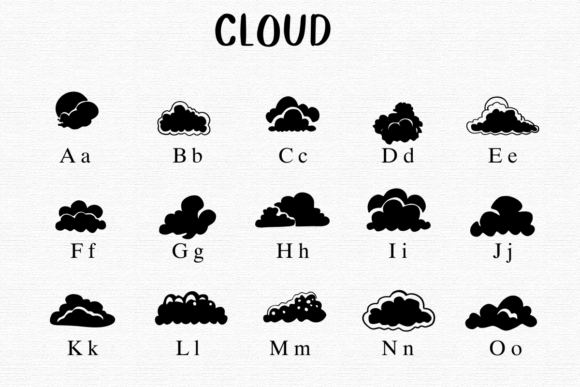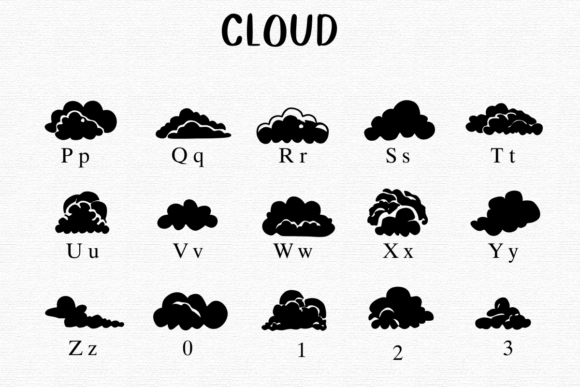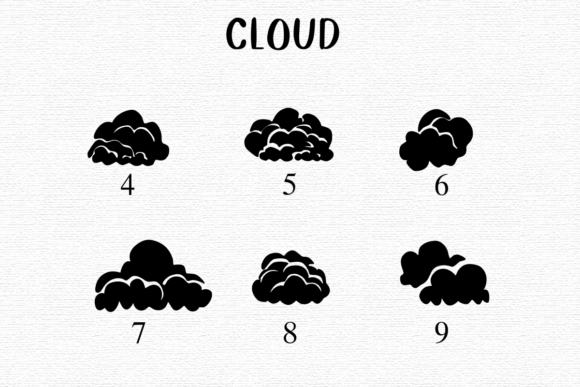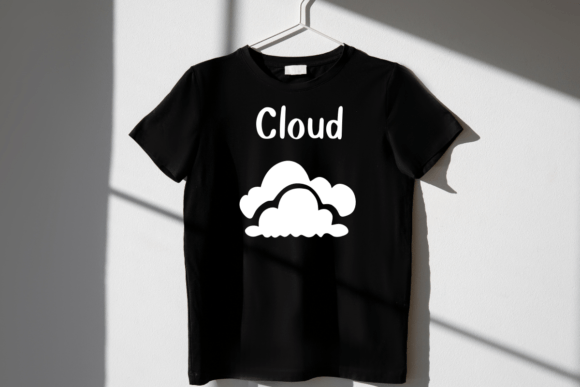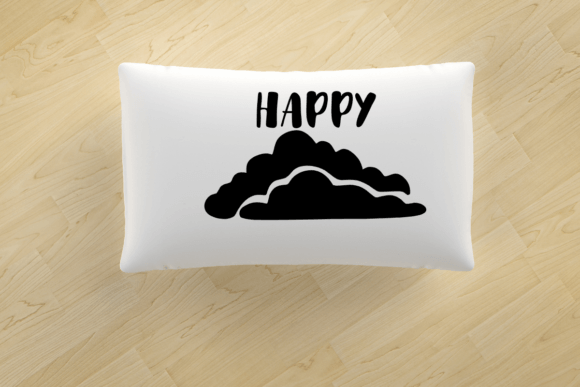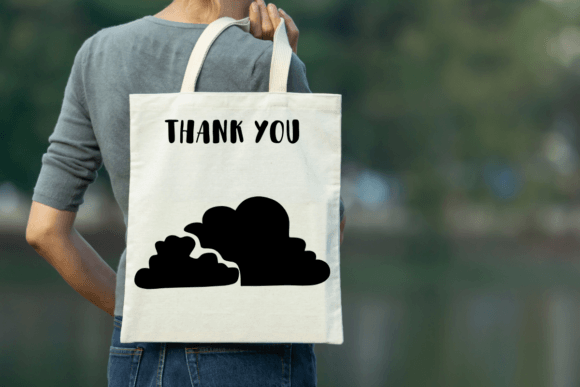
Elevate Your Designs with Cloud Font: A Sketched Dingbats Font
Are you a designer, crafter, or DIY enthusiast looking for a unique and creative font to take your projects to the next level? Look no further than Cloud Font, a beautiful dingbats font with a sketched style that’s perfect for a wide range of applications. In this article, we’ll explore the features and benefits of Cloud Font, and show you how it can enhance your creative projects.
What is Cloud Font?
Cloud Font is a dingbats font that features a charming, hand-sketched style. The font is made up of a collection of illustrations and graphics that can be used to add a touch of whimsy and personality to your designs. With Cloud Font, you can create beautiful and eye-catching projects that are sure to stand out.
Features of Cloud Font
Cloud Font has a number of features that make it an ideal choice for designers and crafters. Some of the key features include:
- Unique and creative designs: Cloud Font features a range of unique and creative designs that are perfect for adding a touch of personality to your projects.
- Hand-sketched style: The font has a charming, hand-sketched style that gives it a personal and organic feel.
- Scalable: The font is scalable, meaning you can use it for a wide range of projects, from small crafts to large-scale designs.
Uses for Cloud Font
Cloud Font is a versatile font that can be used for a wide range of projects. Some of the most popular uses for the font include:
- Wedding invitations: Cloud Font is perfect for creating beautiful and unique wedding invitations that will set the tone for your special day.
- DIY projects: The font is great for DIY projects, such as crafting, scrapbooking, and home decor.
- Logos and branding: Cloud Font can be used to create custom logos and branding materials that will help your business stand out.
- Crafts and decorations: The font is perfect for creating handmade crafts and decorations, such as cards, gift tags, and wall art.
Benefits of Using Cloud Font
There are many benefits to using Cloud Font in your designs. Some of the key benefits include:
- Adds a personal touch: Cloud Font adds a personal and unique touch to your designs, making them stand out from the crowd.
- Versatile: Cloud Font can be used for a wide range of projects, from small crafts to large-scale designs.
- High-quality designs: The font features high-quality designs that are sure to impress.
Tips for Using Cloud Font
Here are a few tips for using Cloud Font in your designs:
- Experiment with different colors: Cloud Font looks great in a range of colors, so don’t be afraid to experiment and find the perfect color for your project.
- Mix and match designs: The font features a range of designs, so try mixing and matching them to create a unique look.
- Use it with other fonts: Cloud Font can be used with other fonts to create a unique and interesting look.
Cloud Font is a beautiful and versatile dingbats font that’s perfect for designers, crafters, and DIY enthusiasts. With its unique and creative designs, hand-sketched style, and ease of use, it’s an ideal choice for a wide range of projects. Whether you’re creating wedding invitations, DIY projects, logos, or crafts, Cloud Font is sure to elevate your designs and add a personal touch. So why wait? Download Cloud Font today and start creating beautiful and eye-catching projects!